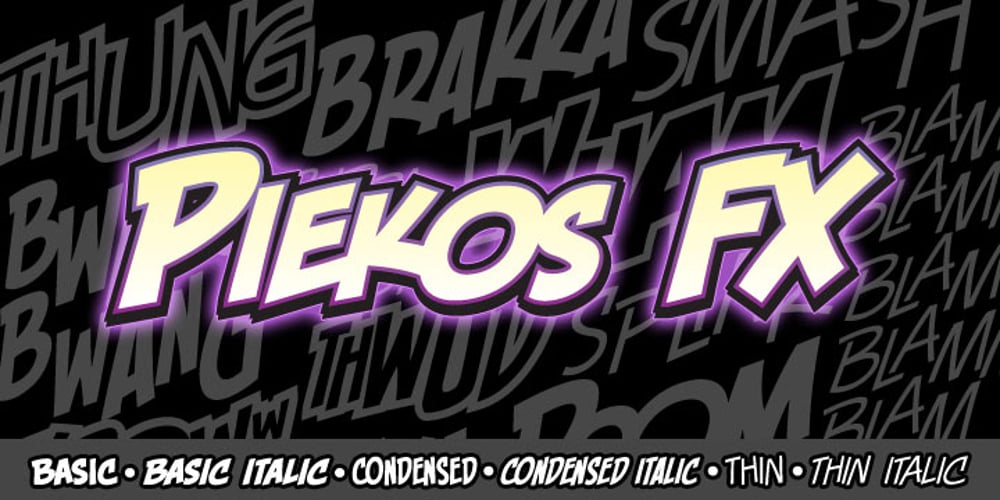
Piekos FX BB Font Family was designed by Nate Piekos and published by Blambot. Piekos FX BB contains 6 styles and family package options. Formerly one of comic letterer, Nate Piekos’ custom fonts, PIEKOS FX is available to the public for the first time. It is an all-purpose sound effects font that comes with Basic, Basic Italic, Condensed, Condensed Italic, Thin and Thin Italic. Tons of European characters included!